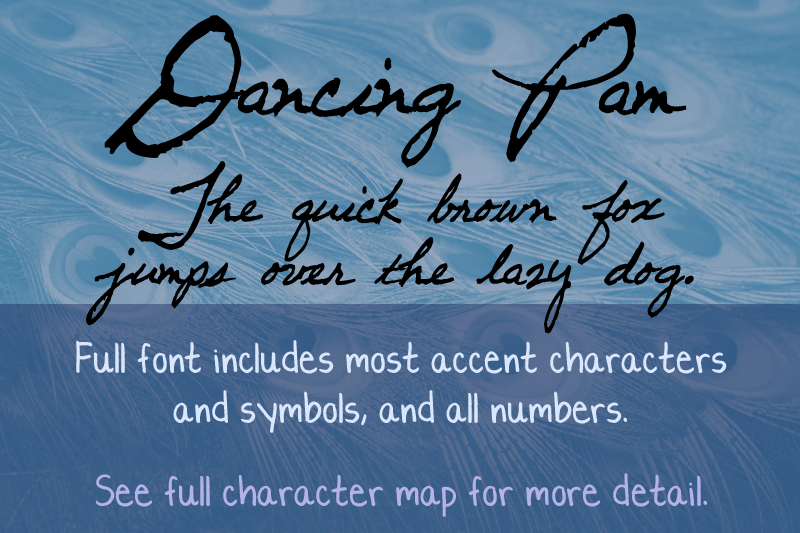
Dancing Pam was made from a character set my mom drew out some 15 years ago at the very end of my high school typography phase. It is a script font with large capital letters, and is probably best used as a decorative title. This is a DEMO version of the font. It includes only uppercase and lowercase letters. You can use the demo version for personal use. The full version of the font, which can be purchased very very cheaply at QuickBrownFoxFonts.com, also contains numbers, puncuation, most accent characters, and many symbols. You can view the full character map at QuickBrownFoxFonts.com. Purchase of the full version entitles you to a full license of the font, with which you can use the font commercially in any project. |